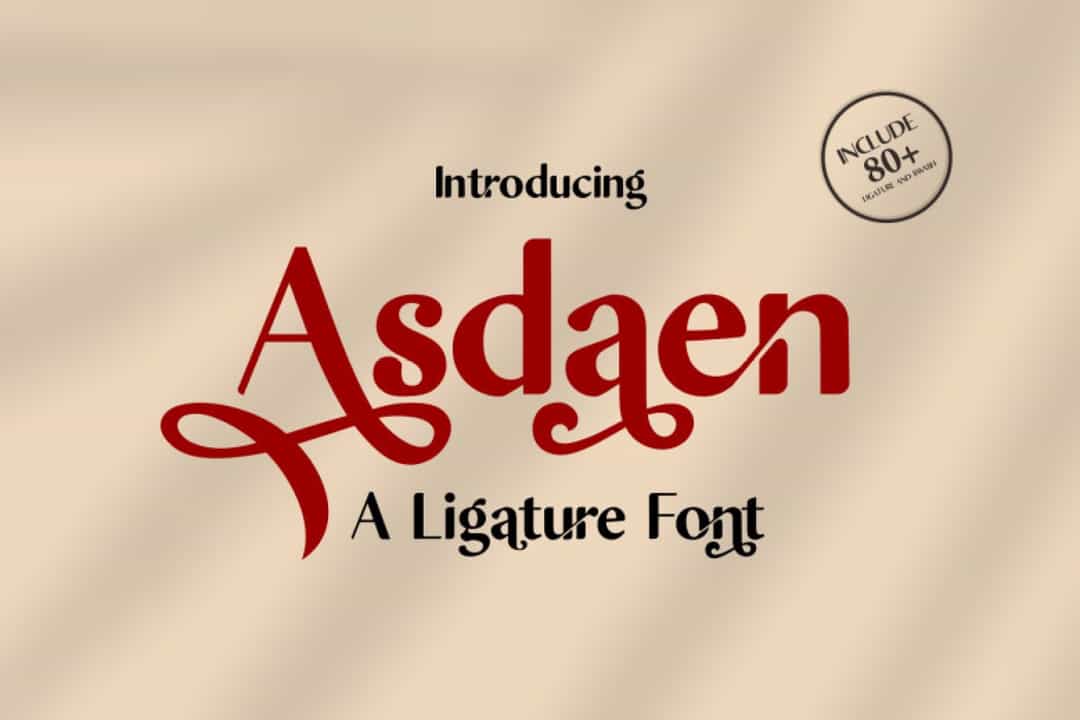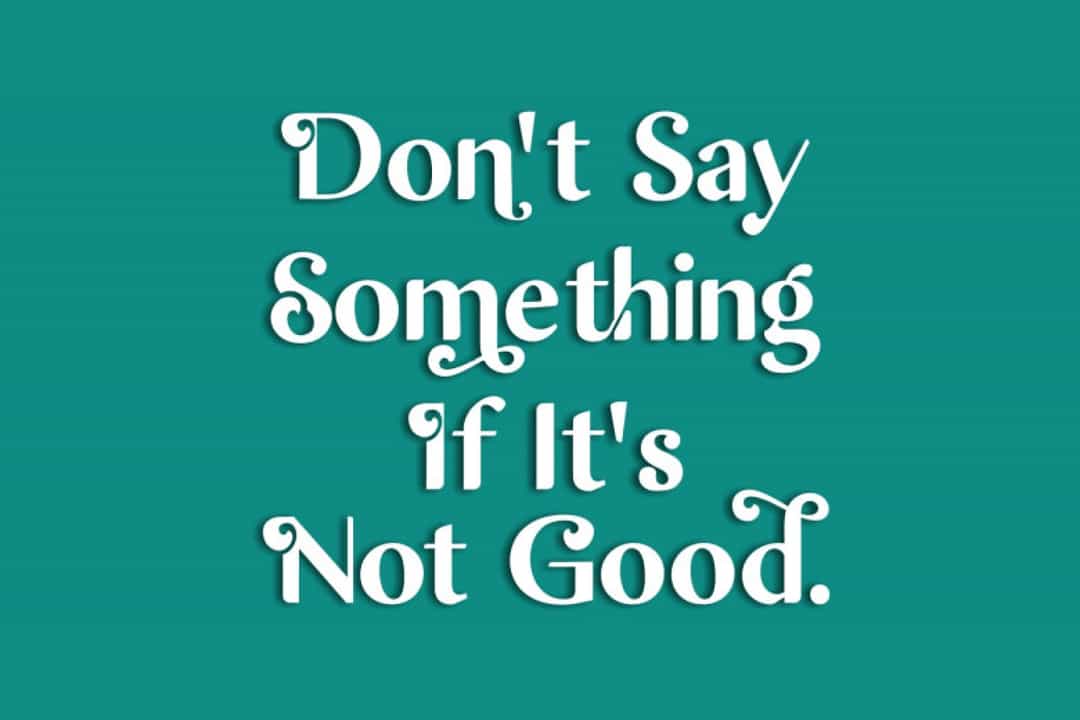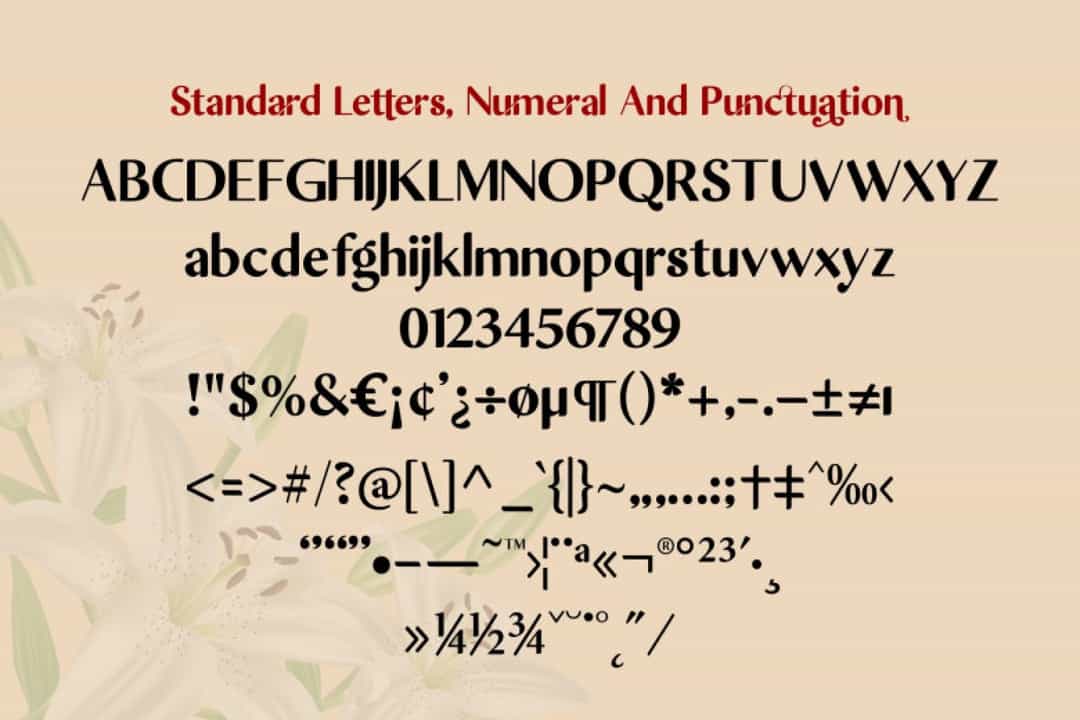
“Asdaen Font” is featuring contrast lines and smooth curves. The font could be classic and conservative however, it can also be more fun and contemporary. Numerous stylish alternates can provide you with a variety of alternatives to use. Play around with the composition of curves and alternative letters.